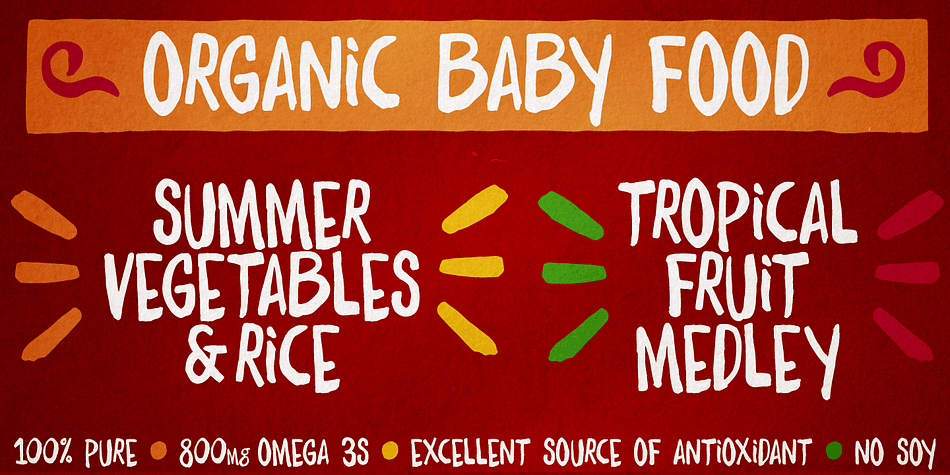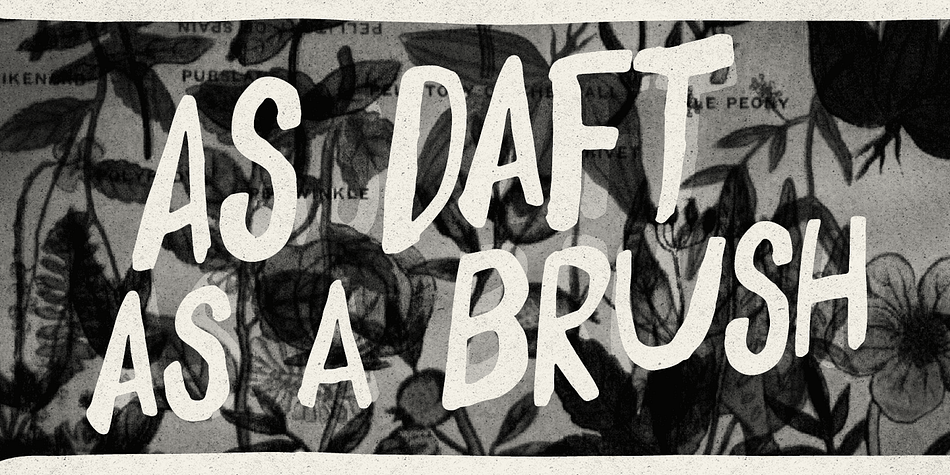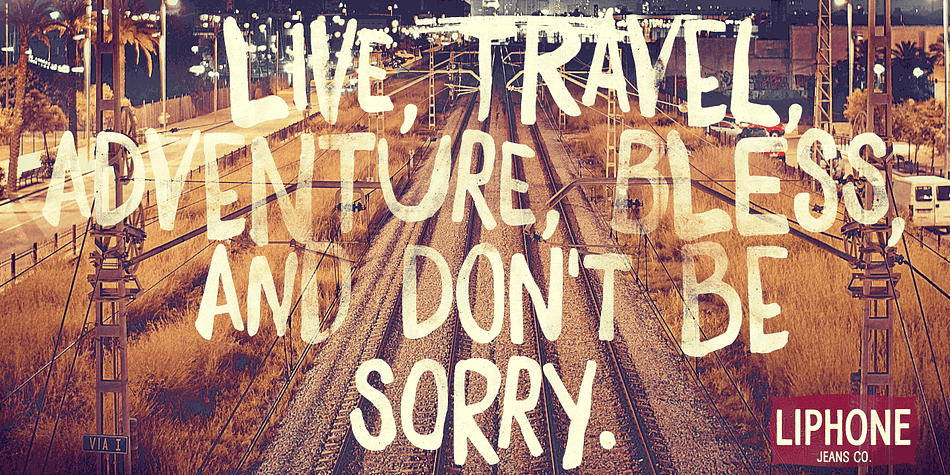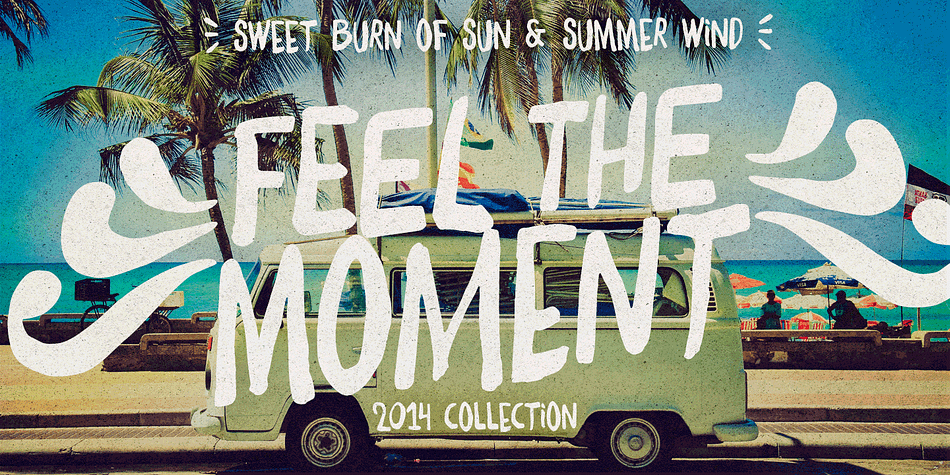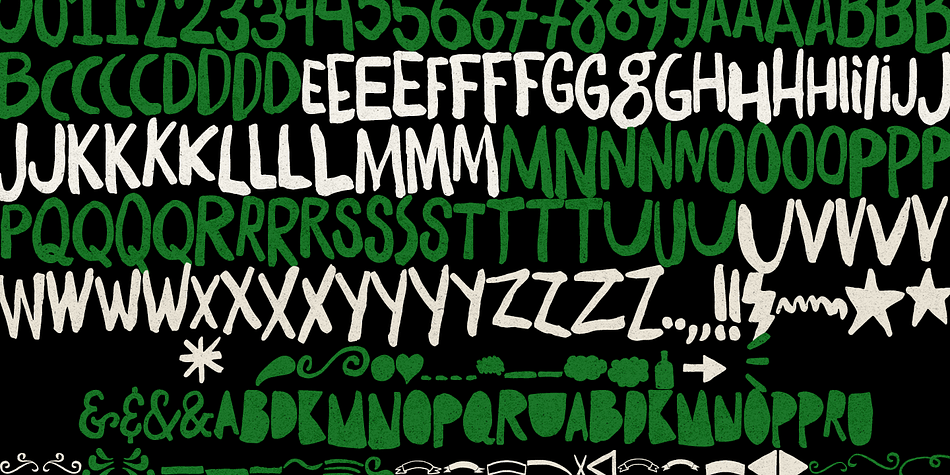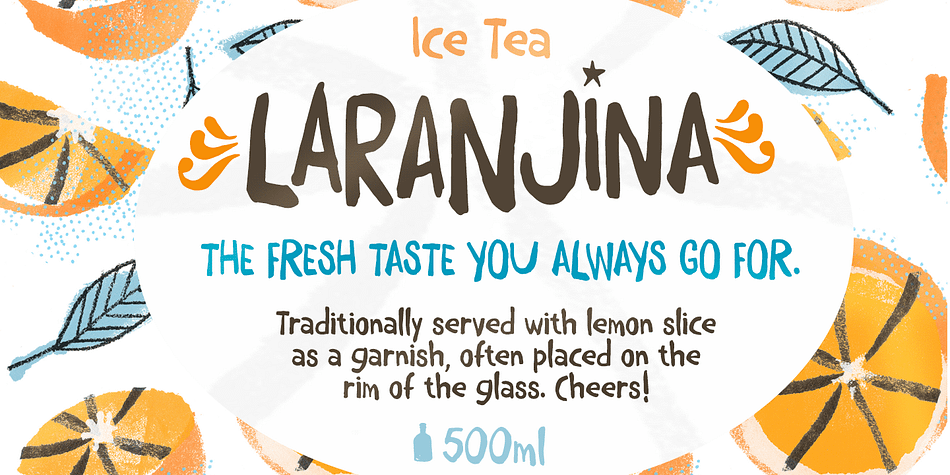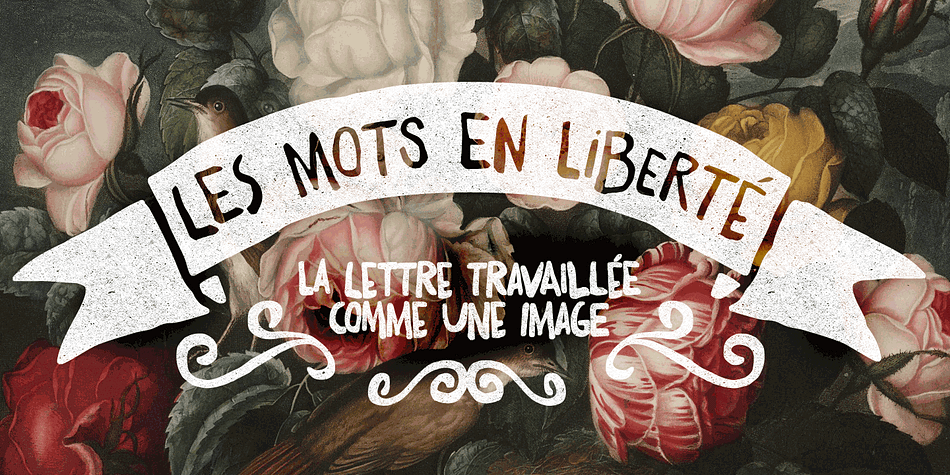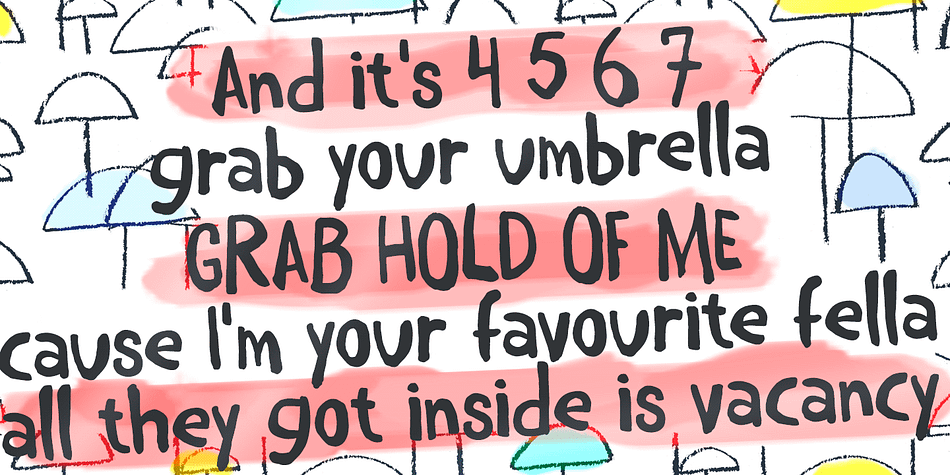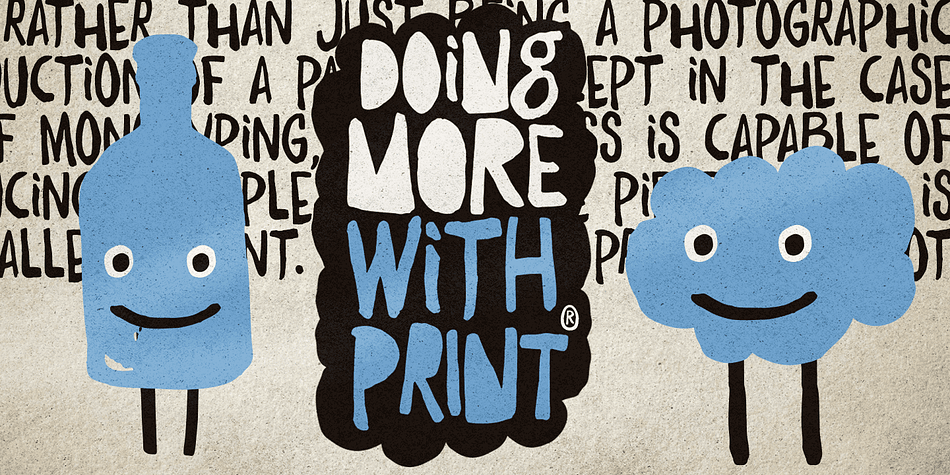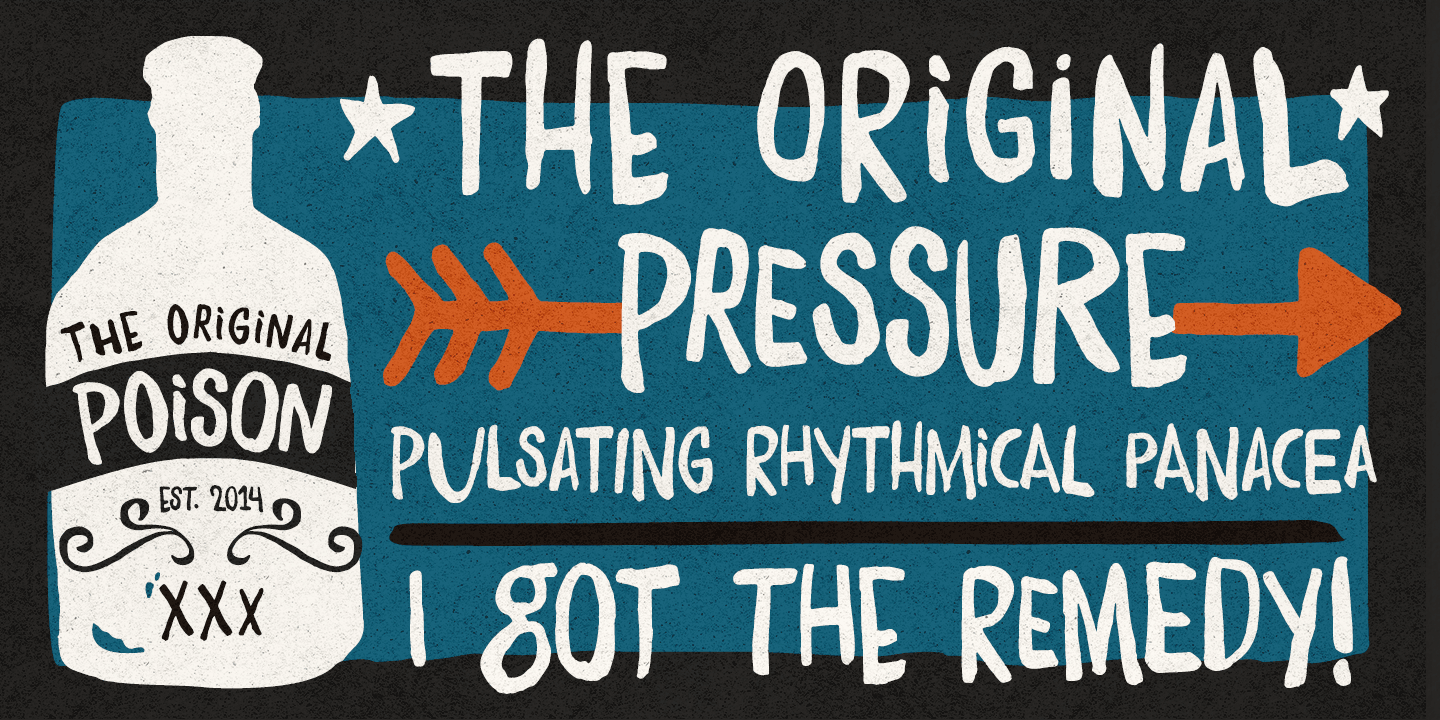
Daft Brush is a hand display font family. This typeface has two styles and was published by PintassilgoPrints.
Daft Brush is the stylish contemporary brush font you’ve been looking for.
It’s not just a rad face. The original cut brings not only 2 or 3, but 4 alternates for each letter! There’s also 2 alternates for numbers and variations for punctuation marks. Its OpenType Contextual Alternates feature is programmed to instantly cycle all these folks to get an amazing organic feel. Yes, OpenType savvy software is needed, but these days even the pretty basic Windows Notepad will do!
Designed initially as an all-caps font, the family now counts with a text font. Daft Brush Text is loaded with a complete set of lowercase letters (and yes, a set of uppercase letters too). Amazing designs guaranteed!
It’s only rock and roll and we like it. Play it loud!